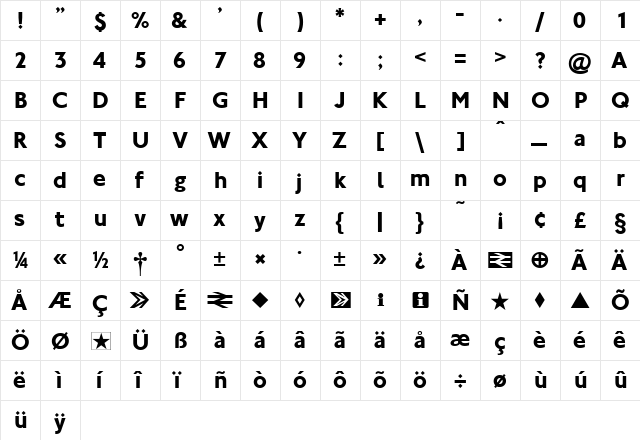
NJBold Regular
Design Context for NJBold Typeface
NJBold takes a measured approach to typography — its balanced proportions and neutral character make it a reliable workhorse for both digital and print work. The heavy weight commands attention and anchors typographic hierarchies.